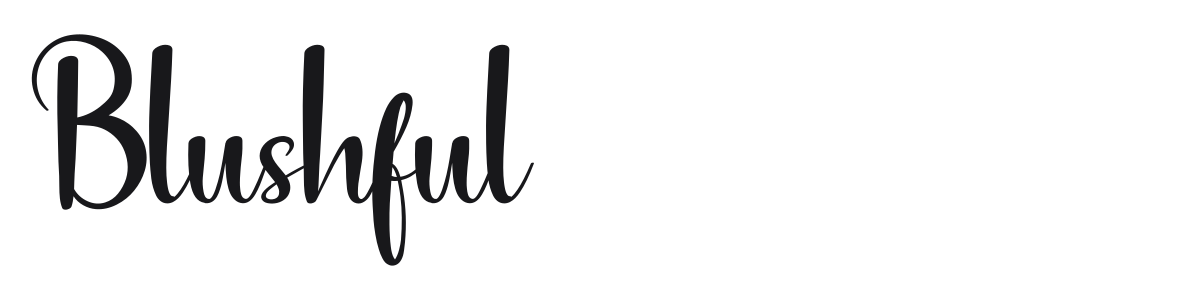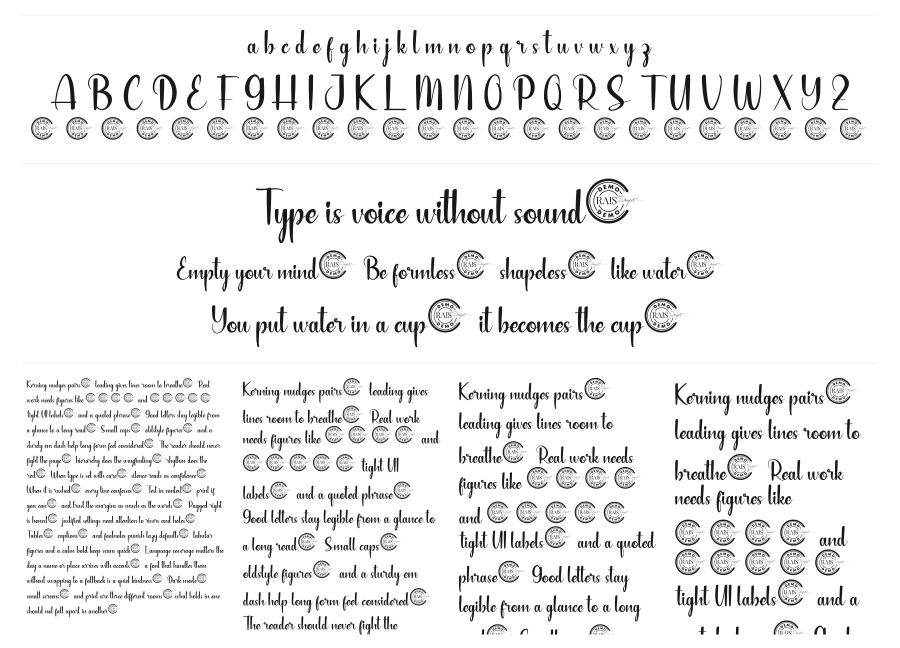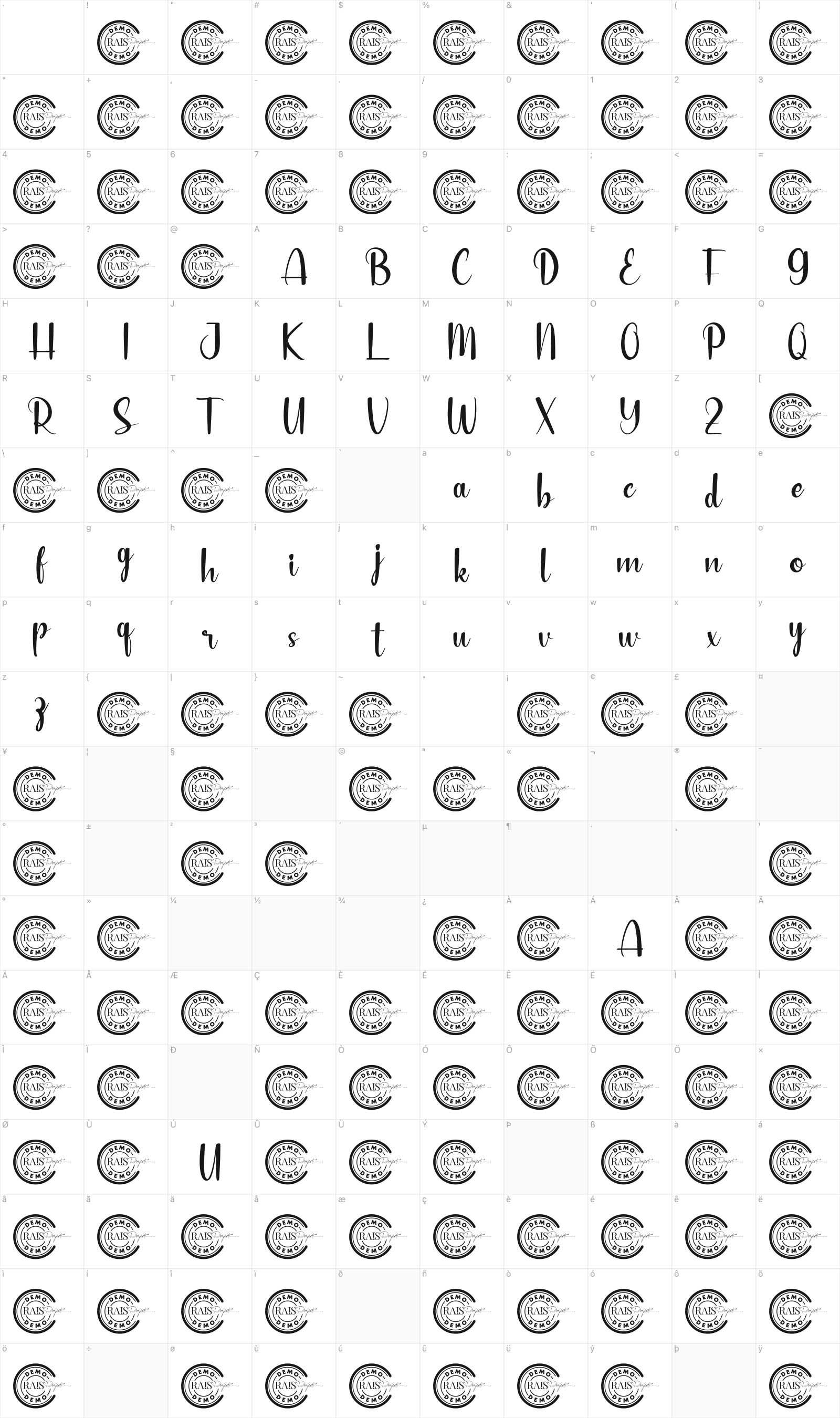
Blushful
Blushful is a casual connected script with a lively bouncy baseline and fluid calligraphic strokes. The moderate stroke contrast between thick downstrokes and fine hairline connectors gives it an authentic hand-lettered quality without feeling overly formal. It works well at display sizes for branding, packaging, and social media graphics in lifestyle and beauty contexts.